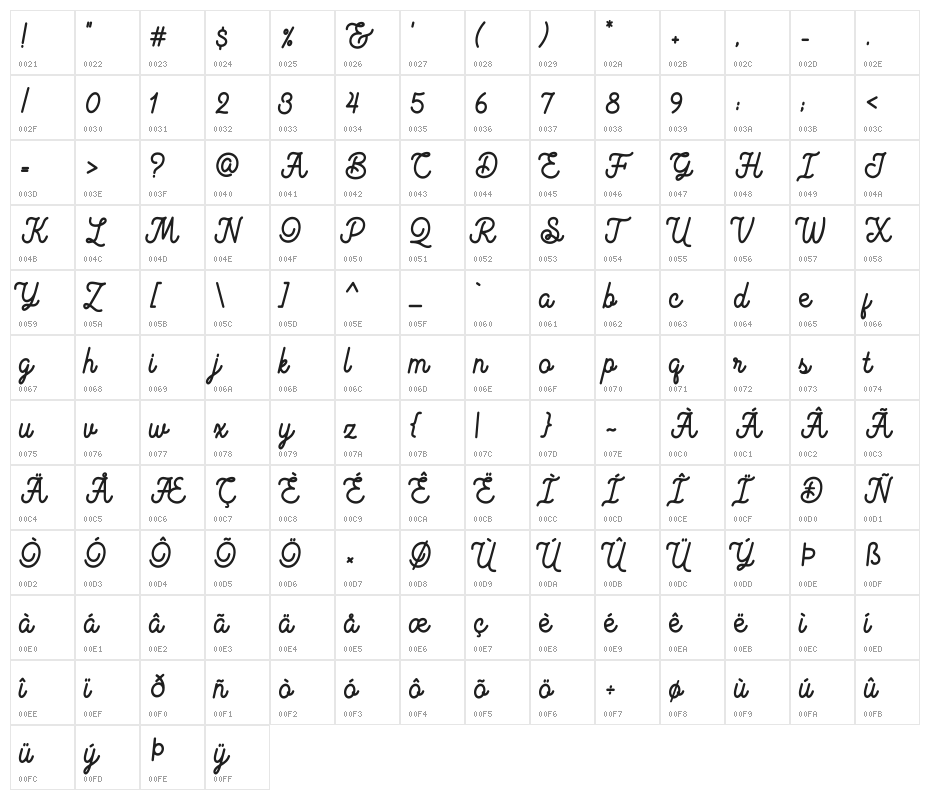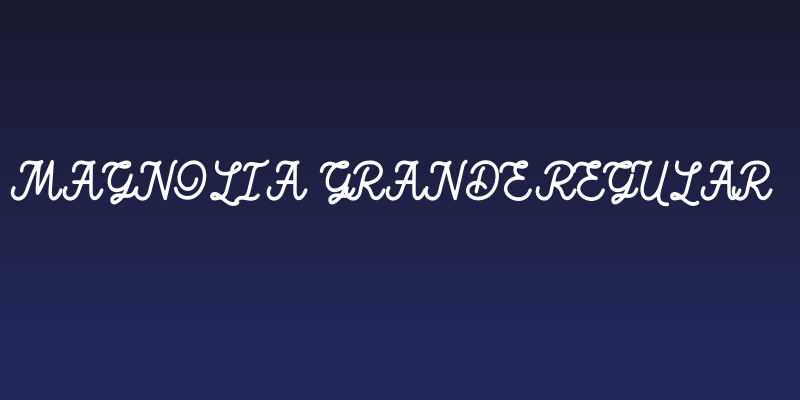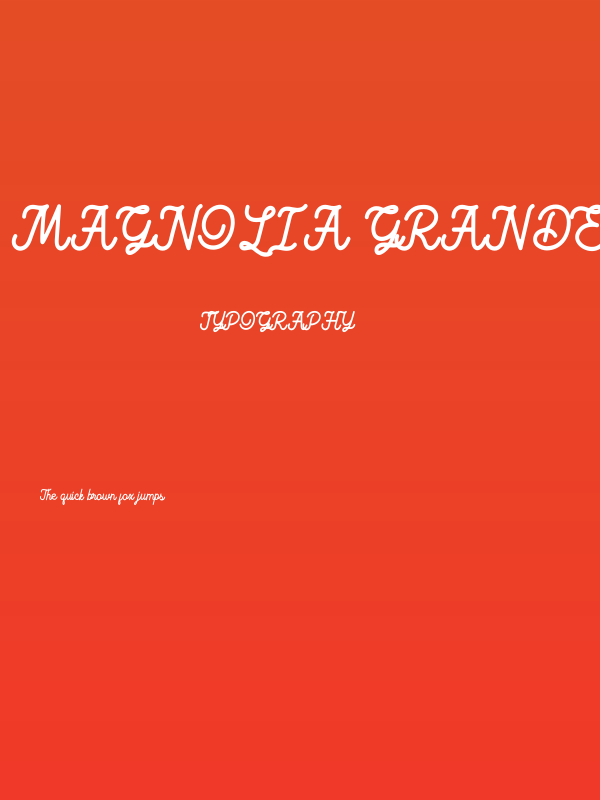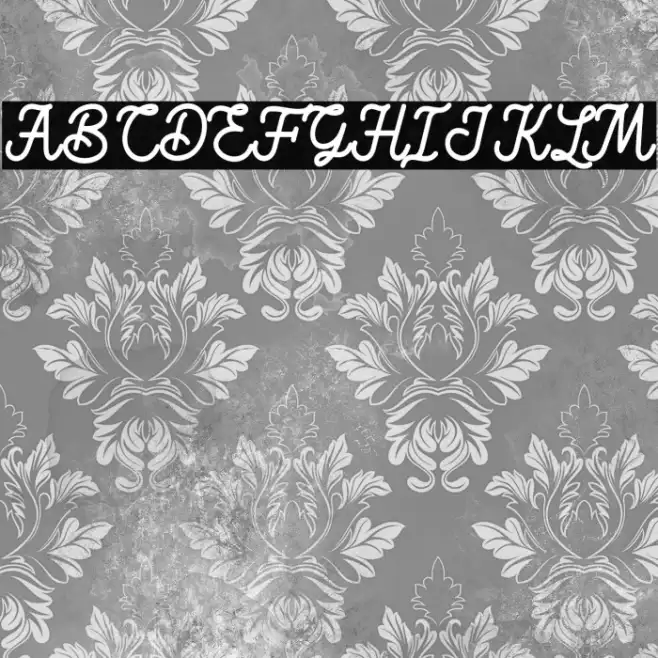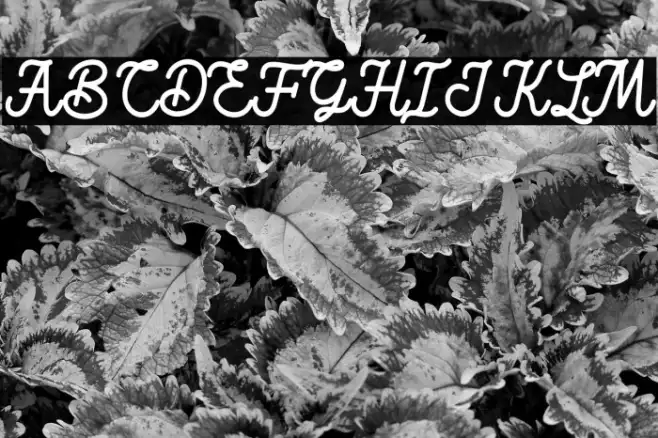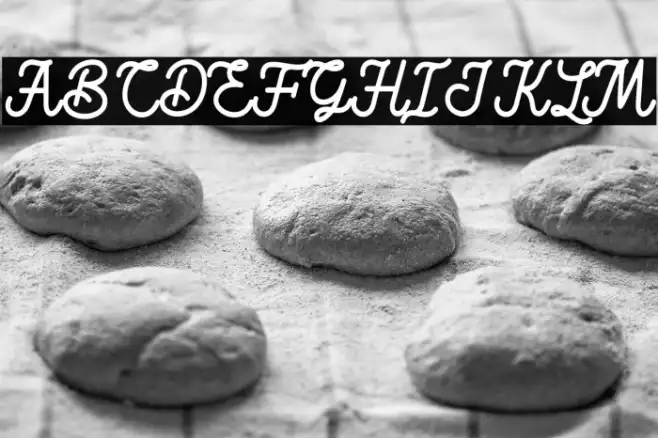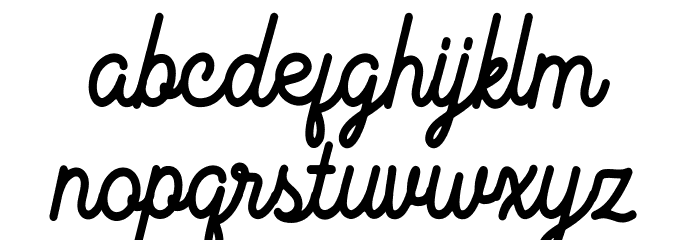
Magnolia Grande Regular Font
Magnolia Grande Regular Description
This font features a flowing, cursive style with elegant loops and curves, reminiscent of traditional calligraphy. The uppercase letters are bold and prominent, with a slight slant that adds a dynamic feel. Lowercase letters maintain a consistent flow, creating a harmonious and connected appearance. The numerals are clear and easy to read, while the special characters blend seamlessly with the overall design. This font exudes a sense of sophistication and grace, making it ideal for projects that require a touch of elegance.